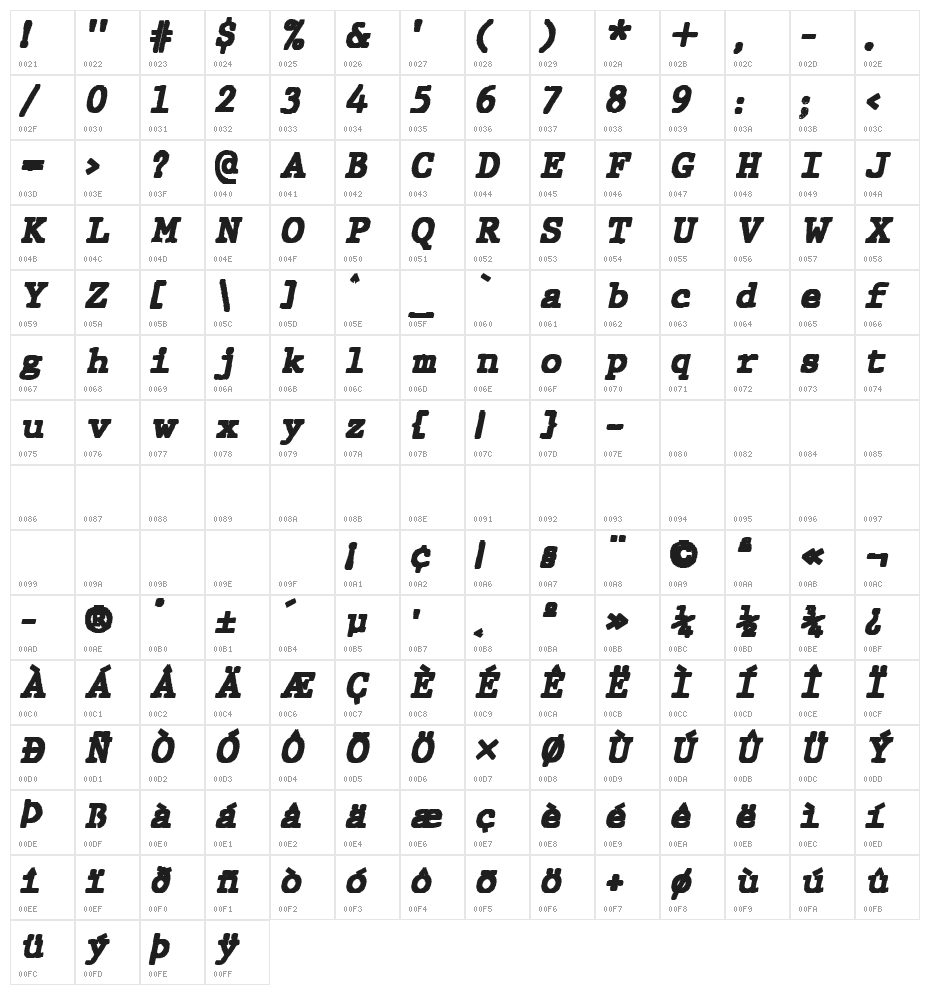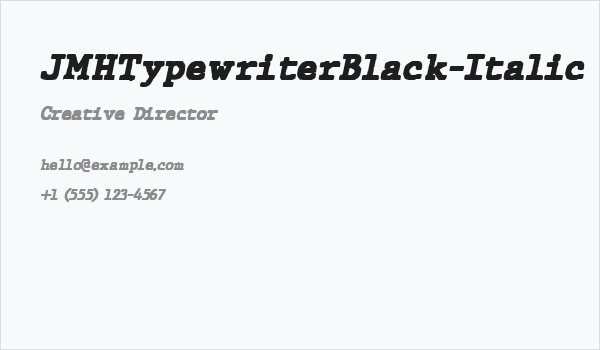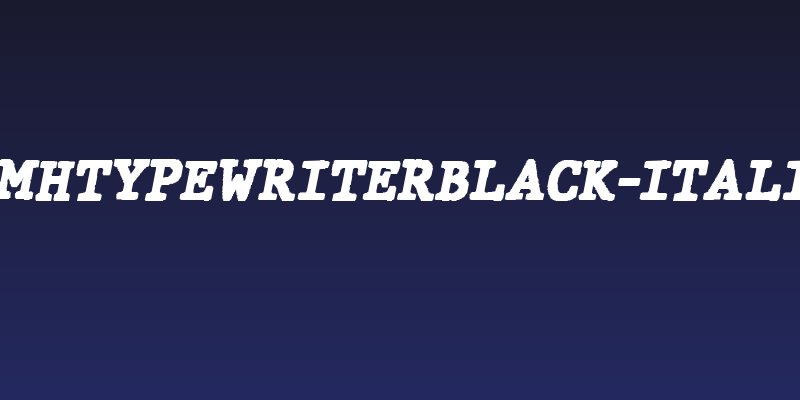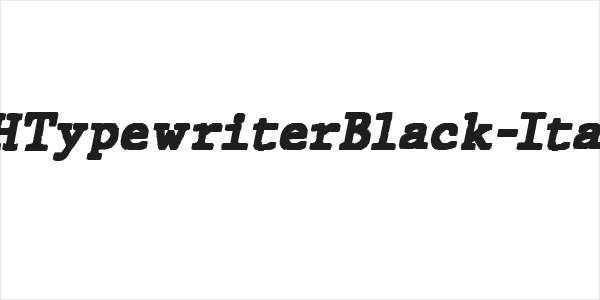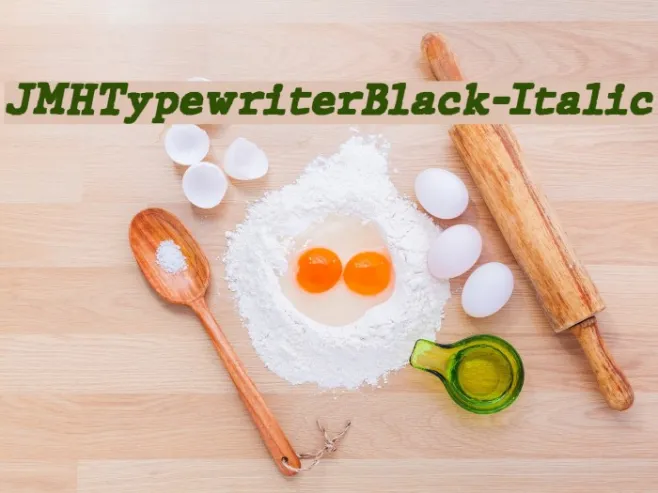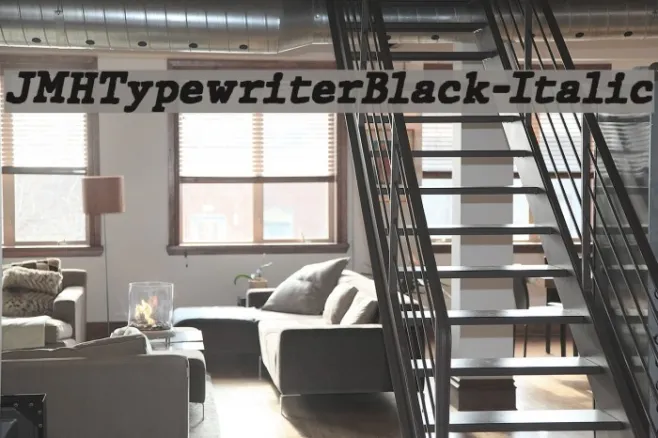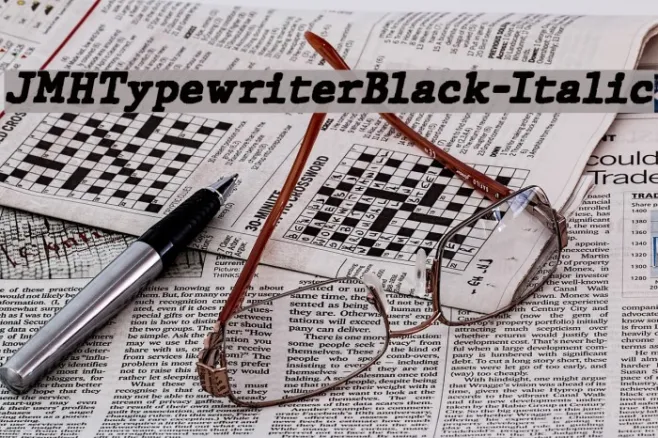
JMHTypewriterBlack-Italic Font
JMHTypewriterBlack-Italic Description
This typeface exudes a vintage charm reminiscent of classic typewriter fonts, yet it incorporates a modern twist with its italicized form. The bold strokes and slightly uneven edges give it a handcrafted feel, while maintaining a sense of structure and readability. The uppercase and lowercase letters are well-proportioned, and the numerals are distinct, ensuring clarity in various applications. The special characters are thoughtfully designed to match the overall aesthetic, making this font versatile for both creative and professional use.